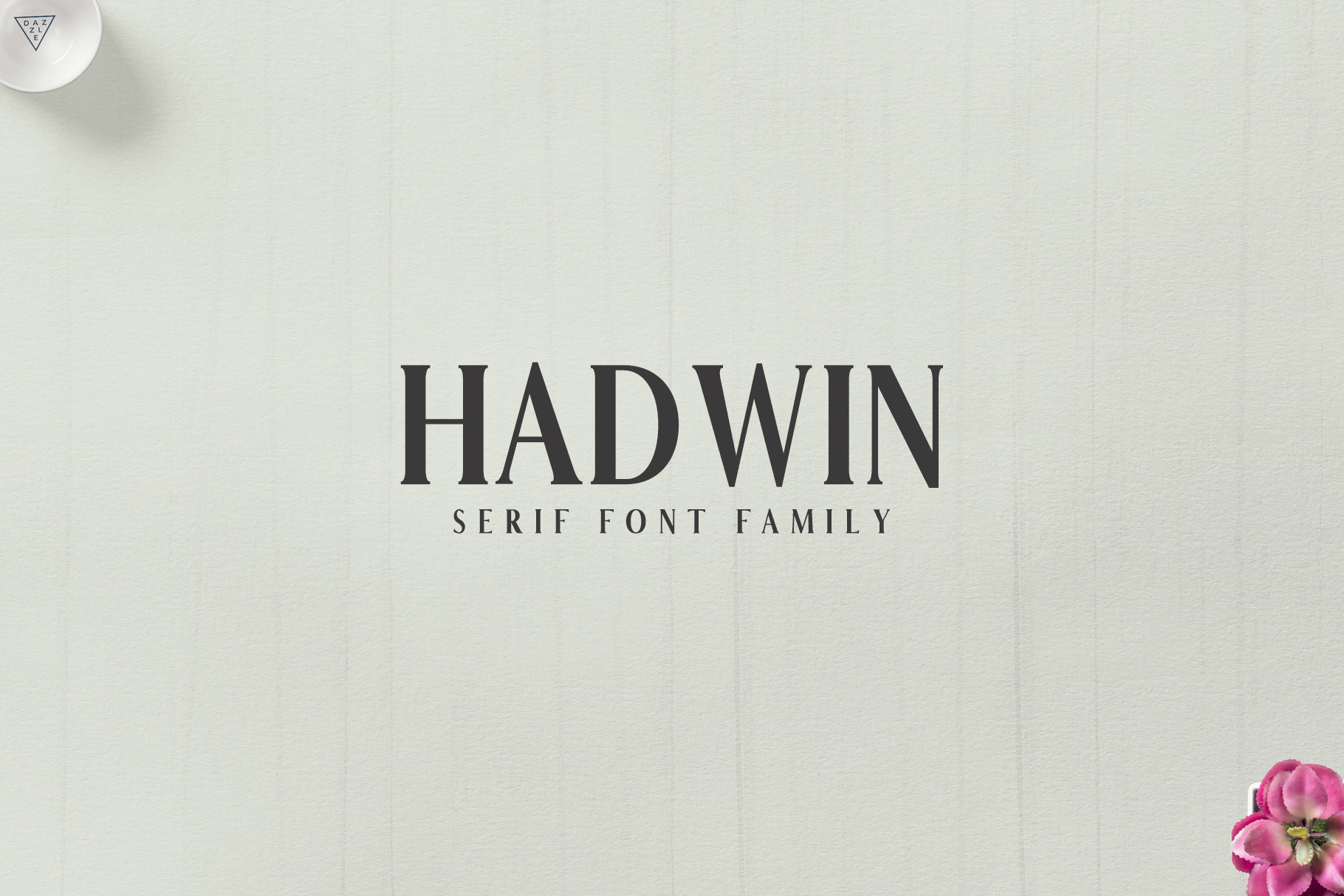
Hadwin Serif Font Family Pack
Hadwin A Serif Font Family is a modern serif family, which comes in four weights: Regular, Light, Thin, and Bold. It features 280 unique glyphs and supports many different languages. Hadwin will be perfect for advertising, invitations, books, packaging, presentations, logo, headlines, lettering, posters, branding, quotes, titles, magazines headings, web layouts, and nearly any creative design.
- Font Weight: Regular, Light, Thin and Bold
Hadwin Font Features:
- Uppercase Multilingual Letters
- Lowercase Multilingual Letters
- Non English Characters ( Latin Supplement + Latin Extended A)